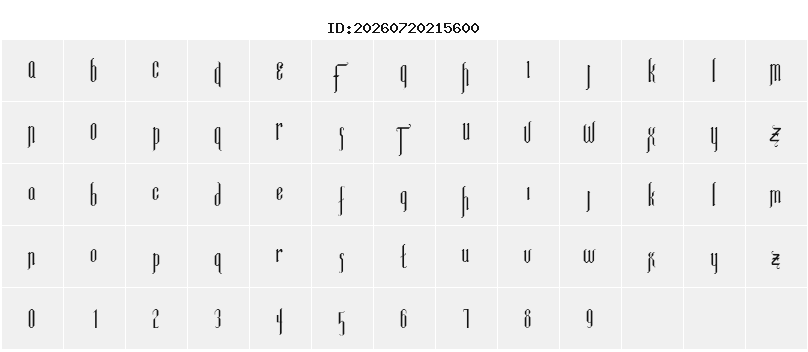
FonteinSSK.ttf is a modern, elegant sans-serif font designed for ultimate readability and visual harmony. Perfect for branding, headlines, web design, and print materials.